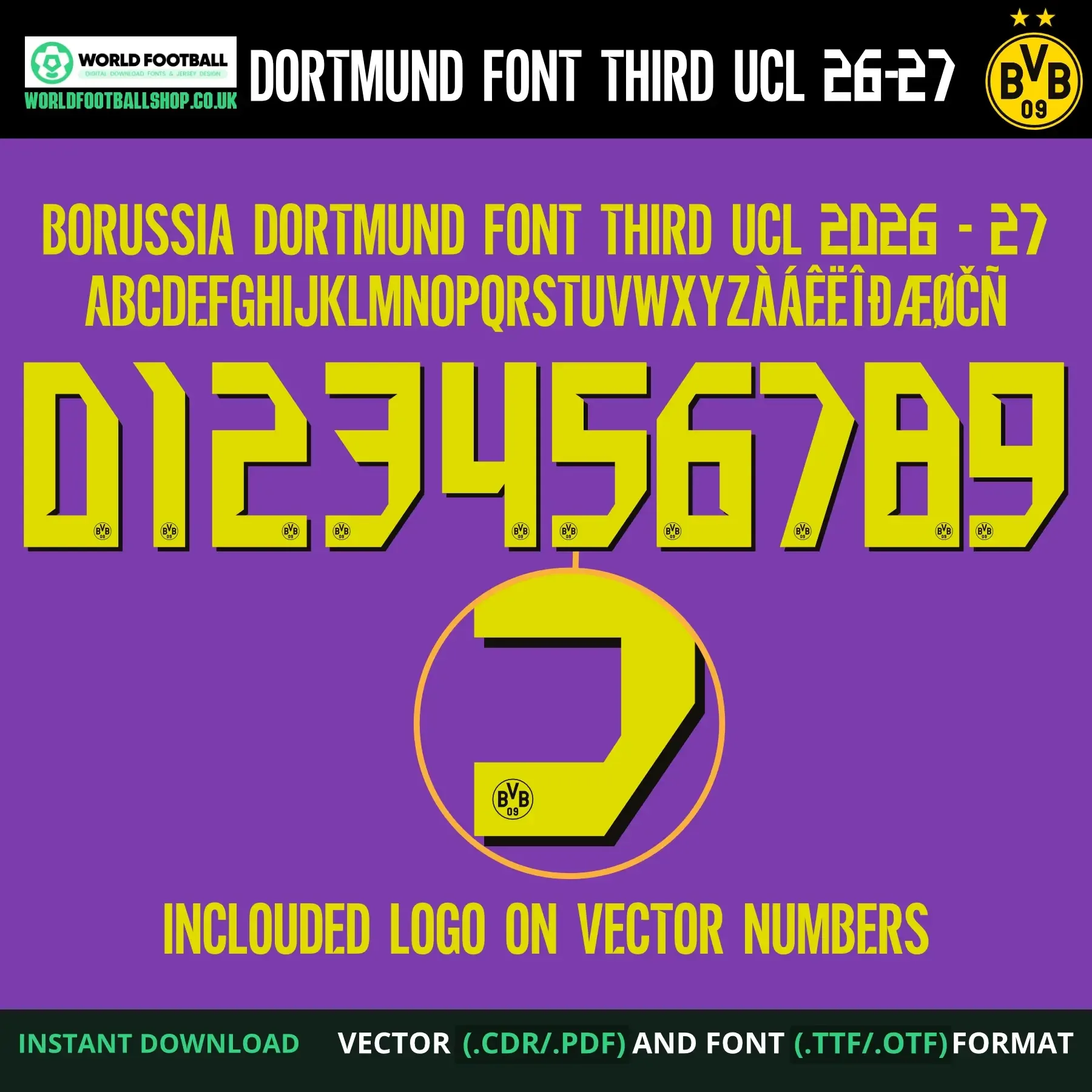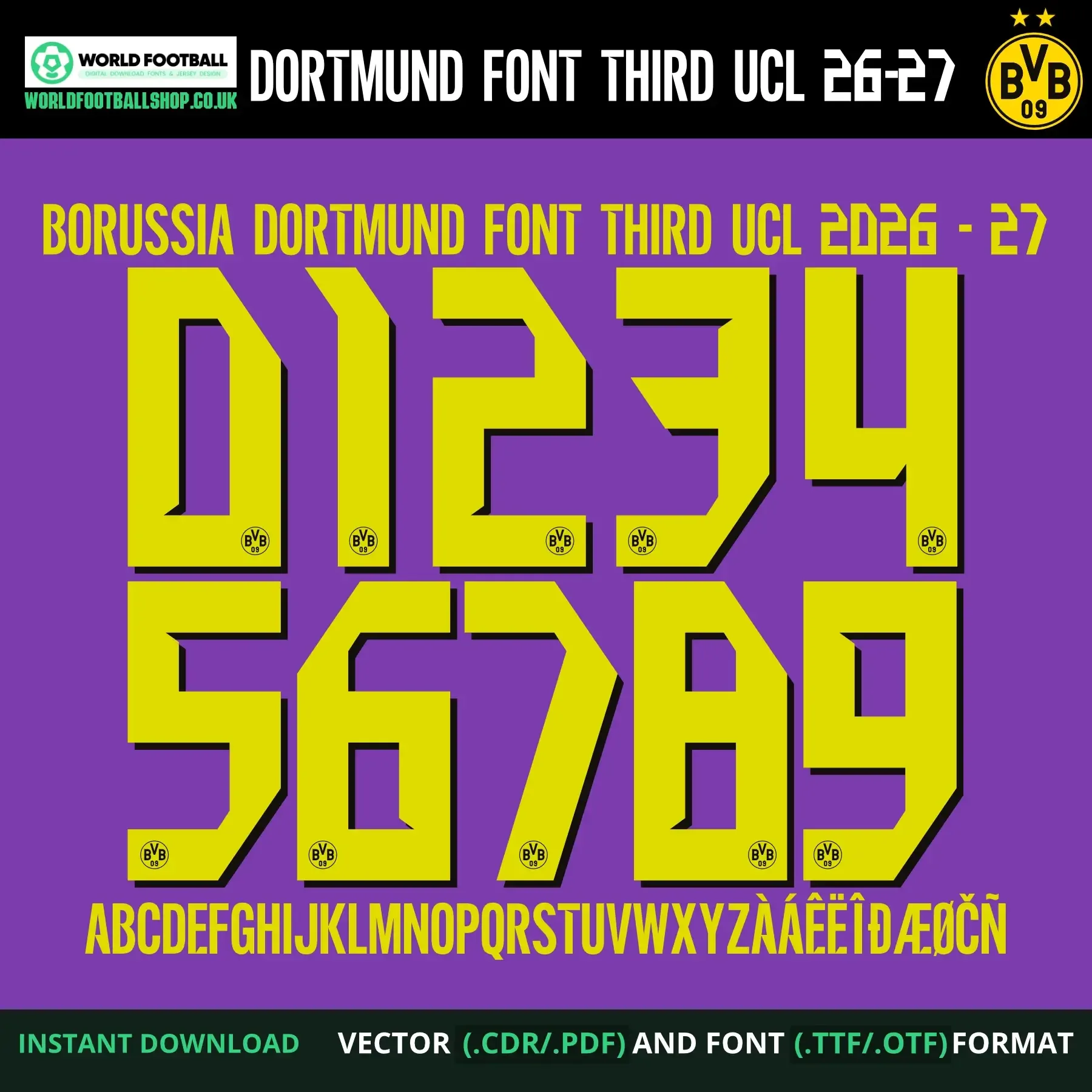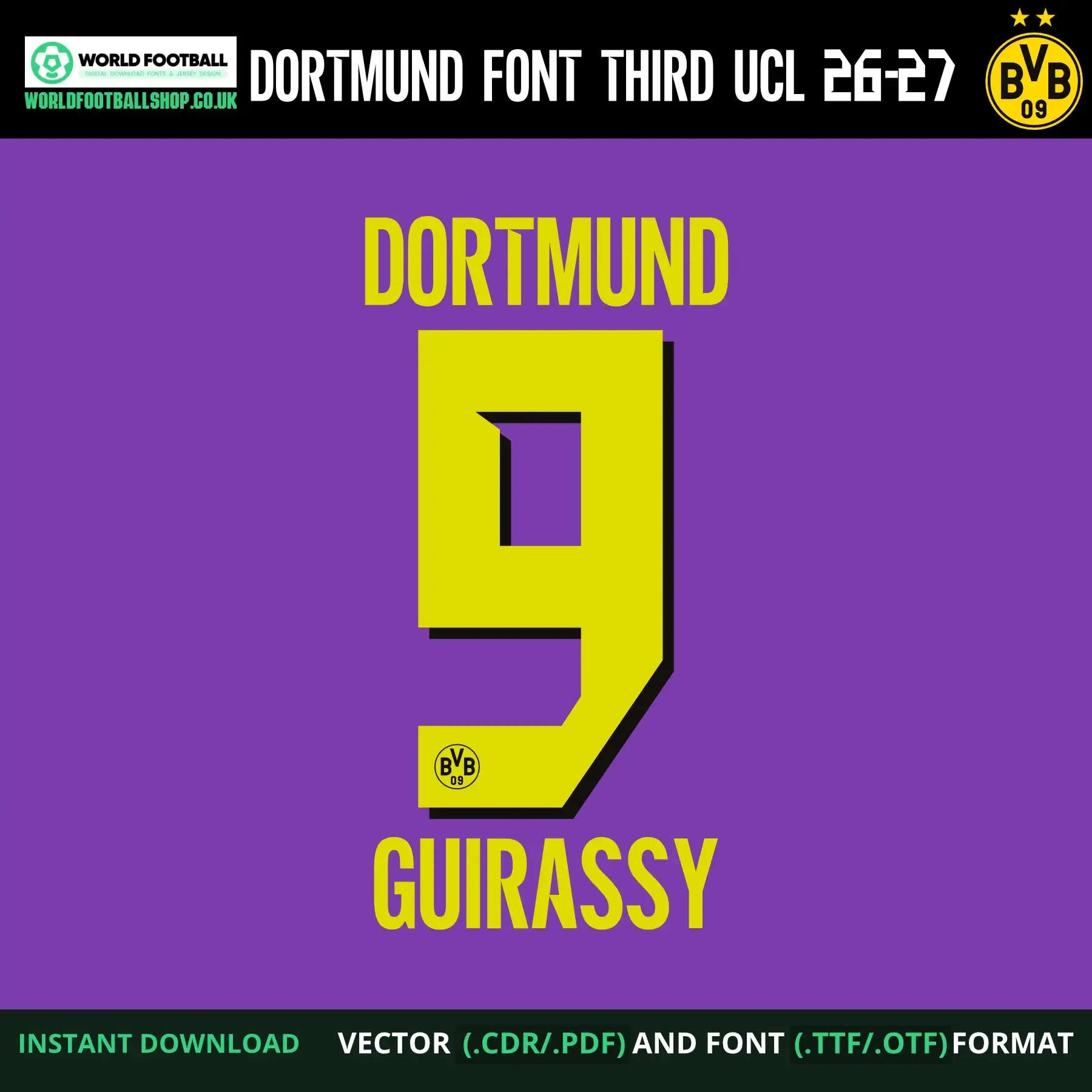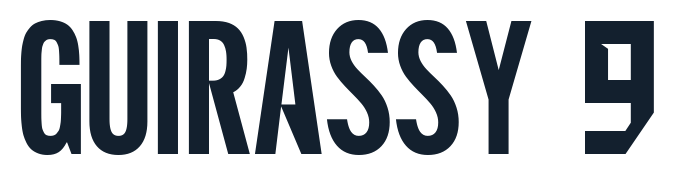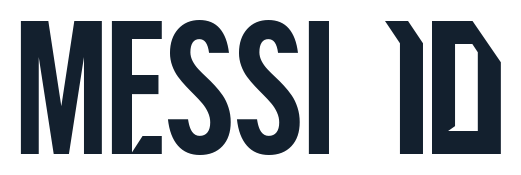
Borussia Dortmund Font Third UCL 2026-27 - Jersey Typography
This football font set takes inspiration from the bold, angular block lettering seen on Borussia Dortmund's third kit for the 2026-27 Champions League season. Each character is built in solid gold/yellow with a strong black 3D shadow effect, set against a deep purple background - a striking departure from Dortmund's usual black-and-yellow home identity, matching the third kit's distinct colourway.
The full character set A-Z alphabet and numbers 09, with the BVB crest embedded at the base of every letter and number - is supplied as both desktop font files (TTF/OTF, installable on Mac and Windows) and vector files (CDR/PDF), so it works whether you're setting text quickly in a design app or need clean, editable outlines for cutting and printing. As a bonus, the numbers 0β9 are also included individually separated, with the crest, in PDF, SVG and PNG β ready to drop straight into Cricut, Silhouette, or any design app without extra editing. The preview layout shows the full character set alongside a sample name and number combination β DORTMUND / GUIRASSY 9 β to demonstrate how the font looks applied.
- Bold 3D shadow effect on gold-on-purple styling stands out from standard flat jersey fonts